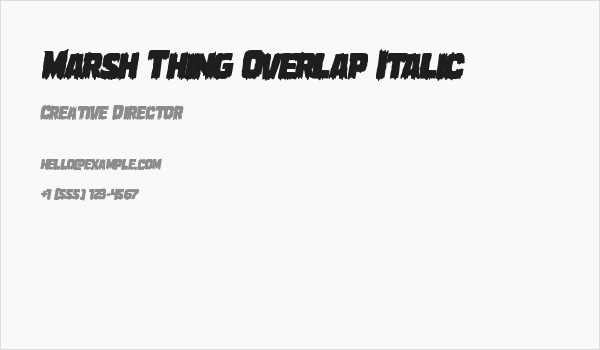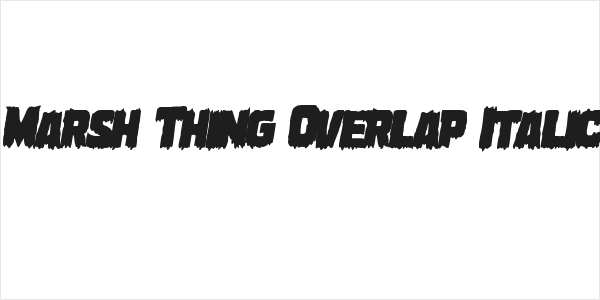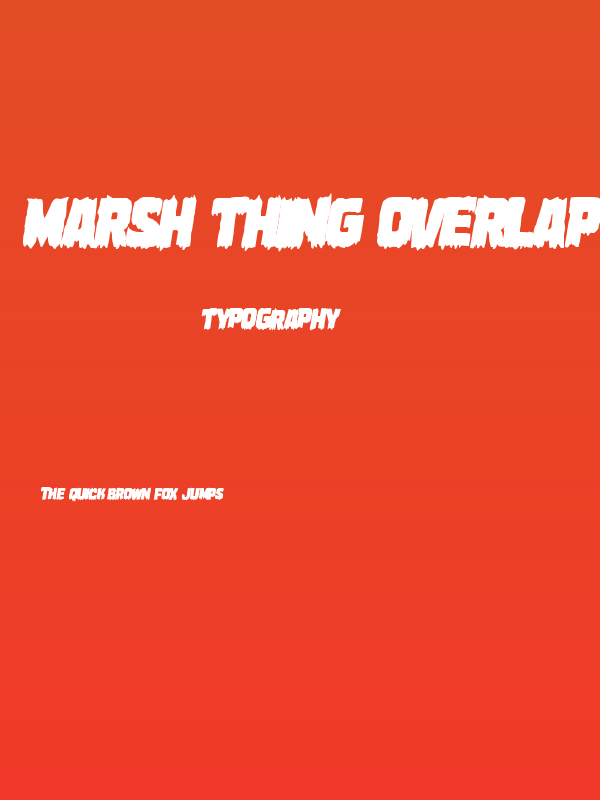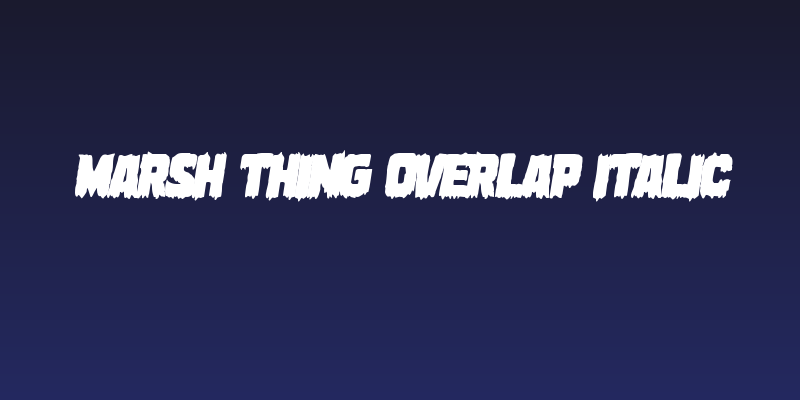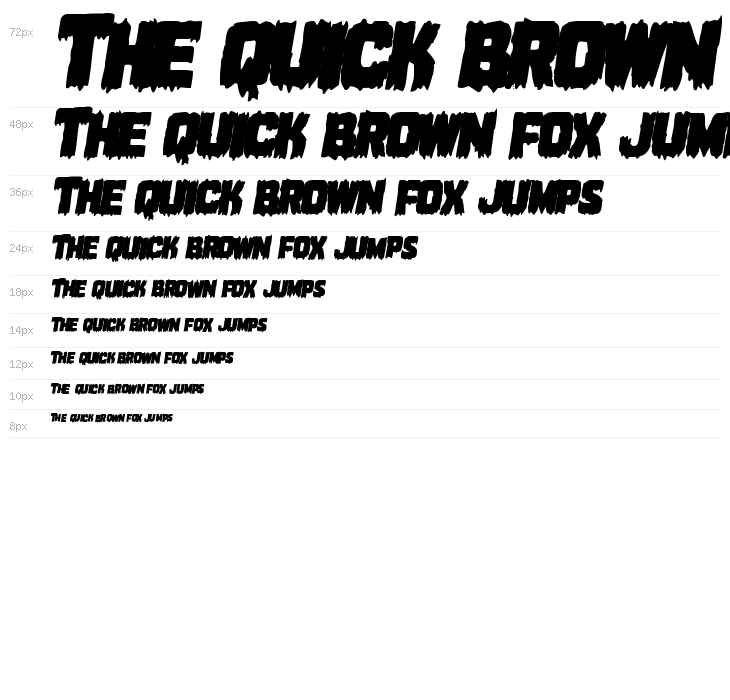
Marsh Thing Overlap Italic Font
Marsh Thing Overlap Italic Description
This font features a bold and rugged design with a distinct italic slant, giving it a dynamic and energetic appearance. The characters are heavily stylized with rough, jagged edges that create a sense of movement and intensity. The uppercase and lowercase letters maintain a consistent style, with wide strokes and a slightly condensed form. Numbers and special characters follow the same bold and aggressive aesthetic, making the font suitable for impactful and attention-grabbing designs. The overall look is reminiscent of a horror or thriller theme, with a chaotic yet controlled presentation.
| Proposed Projects | Ideal for horror movie posters, Halloween event flyers, edgy branding, and video game titles. |